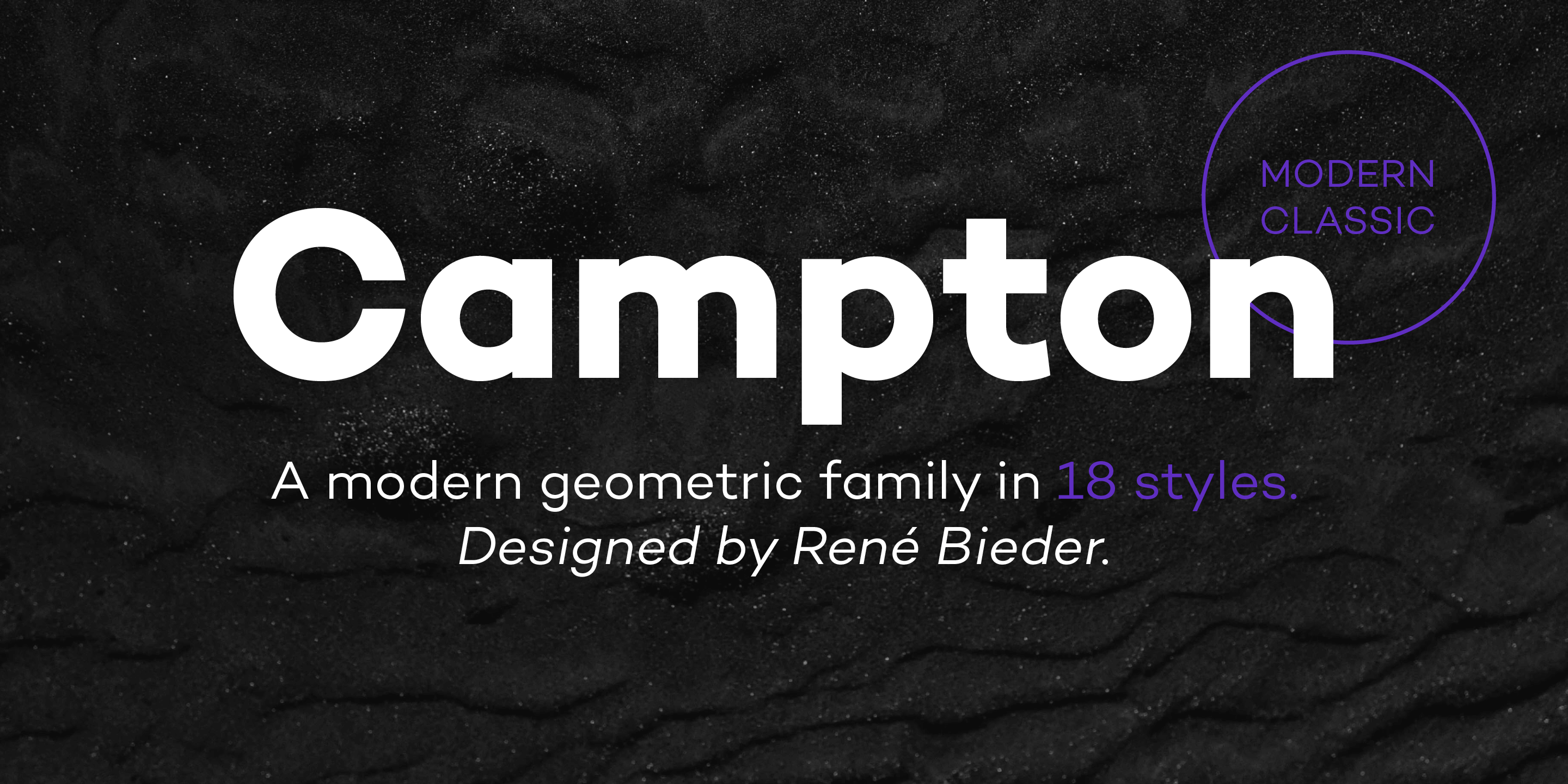
Campton Font is ideal for contemporary branding systems, corporate communications, modern website designs, editorial layouts, tech company materials, startup presentations, clean signage systems, and professional documentation requiring crisp readability.
What makes Campton Font exciting is its refined geometric construction that perfectly balances modern minimalism with exceptional functionality. This sophisticated typeface features clean, well-proportioned letterforms with subtle character details that create a professional yet approachable aesthetic, making it ideal for brands seeking contemporary authority without sacrificing warmth and accessibility in their visual communications.
The Campton Font family includes six weights from light to black, plus matching italics and extensive character support that provide comprehensive typographic flexibility for complex design systems and international branding applications across multiple languages.
This outstanding typeface delivers superior versatility and contemporary professionalism, making Campton Font Free Download an essential tool for modern design projects. The font's balanced character makes it perfect for organizations wanting to convey reliability and innovation simultaneously in their brand communications. Corporate design teams and branding agencies particularly appreciate its ability to maintain clarity and sophistication across diverse media applications. The carefully crafted letterforms ensure optimal legibility and consistent brand expression from small mobile interfaces to large environmental graphics. Whether you're developing comprehensive brand identities or creating user-centered digital experiences, this font provides the perfect combination of geometric precision and human-centered design thinking. Creative professionals consistently select this typeface for projects requiring that ideal synthesis of contemporary minimalism and functional excellence, making it invaluable for forward-thinking organizations that prioritize both aesthetic appeal and communication effectiveness.